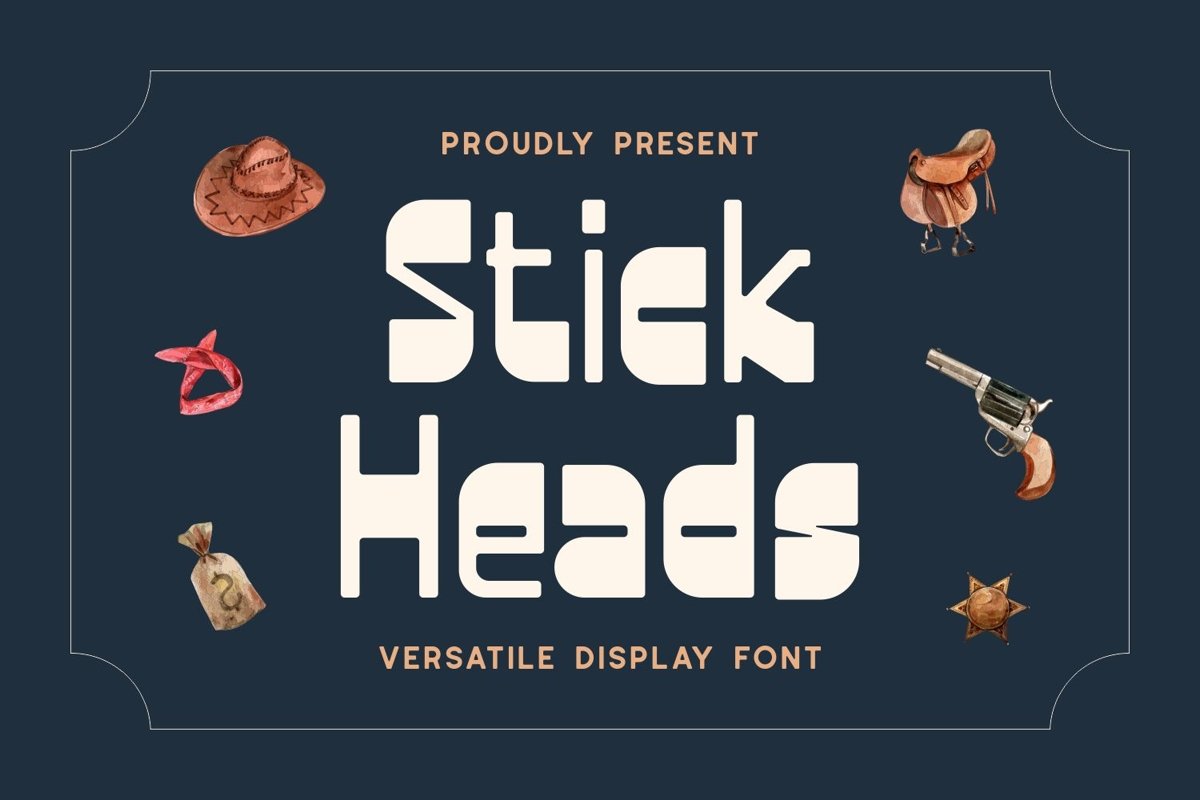
Stick Heads is sans serif display come with versatile themes. We wanted to create the most unique character. It matches applies in some designs such as the logotype, brand, packaging, quotes, poster, t-shirt, cover book, invitation and more custom design. The features uppercase, lowercase, numeral, punctuation & symbol, multilingual support.
Stick Heads